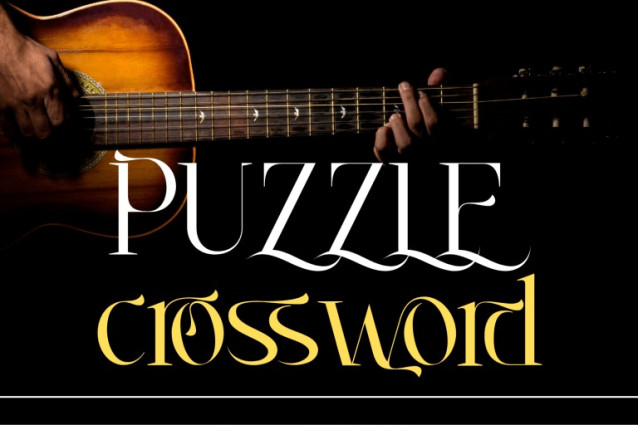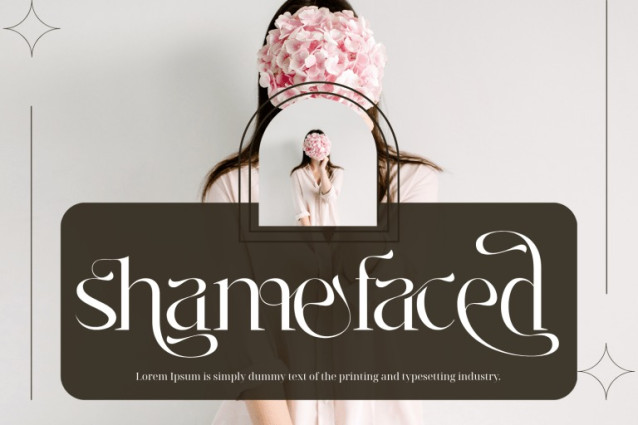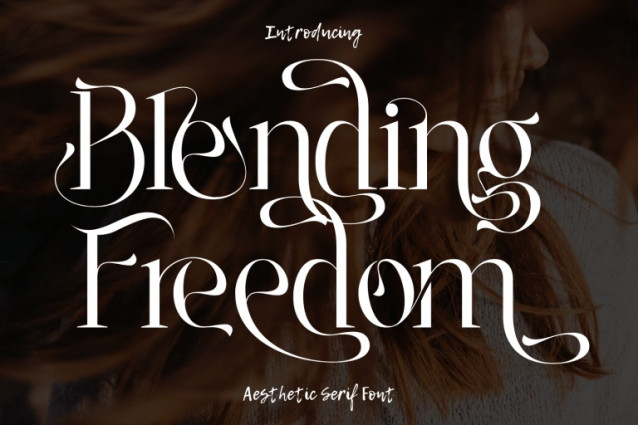
Blending Freedom Font
Blending Freedom Font – Elegant Font – A Modern Decorative Serif Font, is an elegant serif display font designed with refined contrast and flowing ornamental swashes. Each character embodies a sense of sophistication, blending sharp serifs with graceful curves that extend into expressive flourishes. The balance between structure and freedom makes this typeface versatile and visually striking. Perfect for luxury branding, wedding stationery, editorial headlines, book covers, fashion campaigns, and artistic projects, Blending Freedom captures attention with its timeless charm and artistic spirit.
🔤 Font Features:
Uppercase & Lowercase Letters
~100 Elegant Ligatures
Accented Characters for Multilingual Support
Beautiful alternates and ornamental swashes
🔤 About 100 ligatures combined with Stylistic Alternates Font: